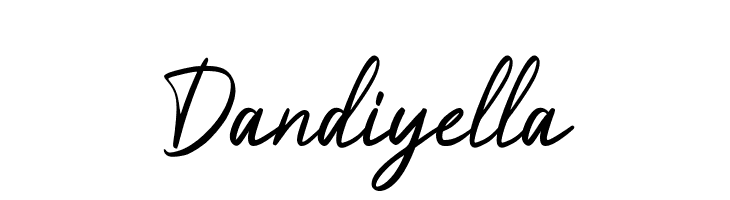
( Fonts by Quick Brown Fox Fonts )
A lively, handwritten script with dynamic, fluid strokes.
( Fonts by Ikrar Bey Khubaib )
A lively, cursive font with fluid strokes and a handwritten feel.
( Fonts by Perspectype Studio )
A playful, handwritten font with fluid, flowing strokes and artistic flair.
( Fonts by Chequered Ink )
A playful, casual handwritten font with rounded edges and consistent height.
( Fonts by sami )
A playful, hand-drawn font with quirky spirals and irregular lines.
( www.candyclouds.it )
A playful and casual handwritten font with smooth, rounded letterforms.
( Fonts by Daniel Designs )
Casual handwritten font.